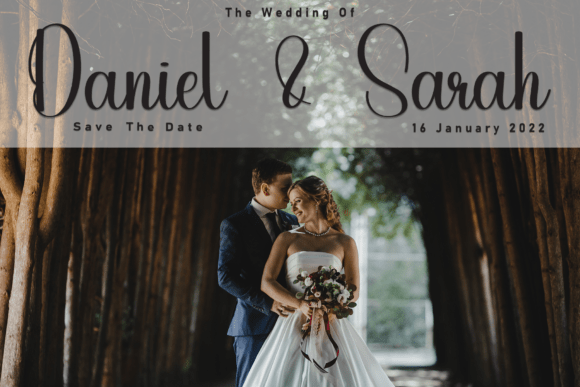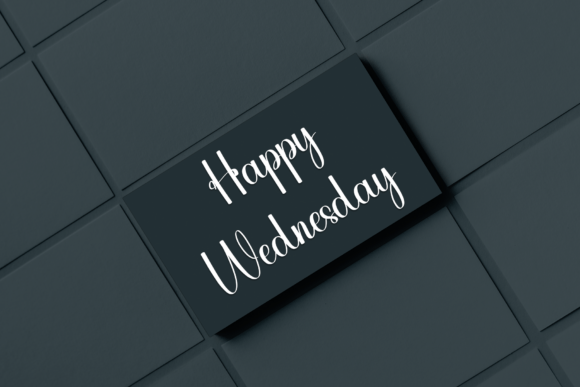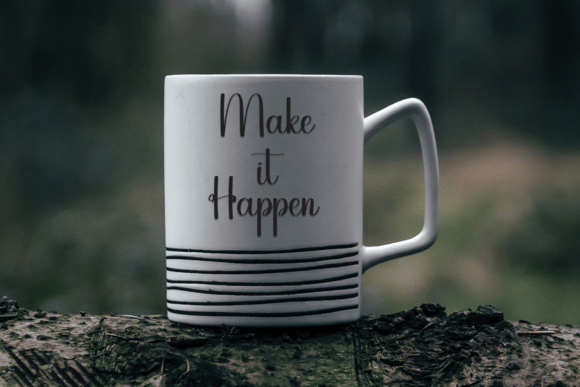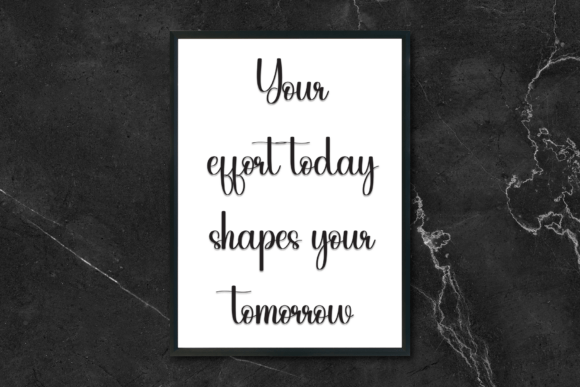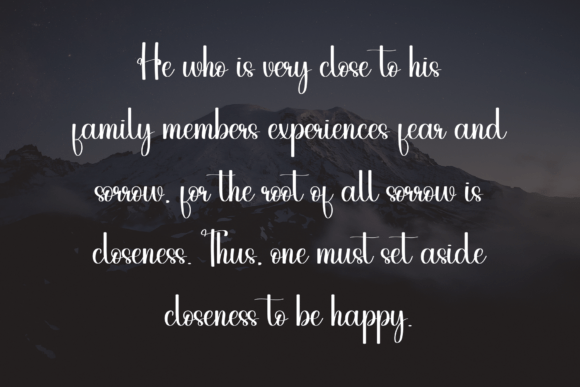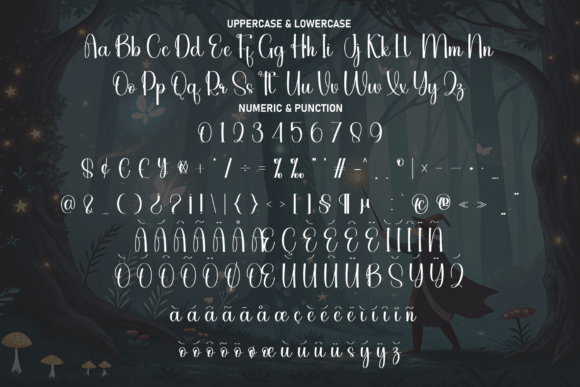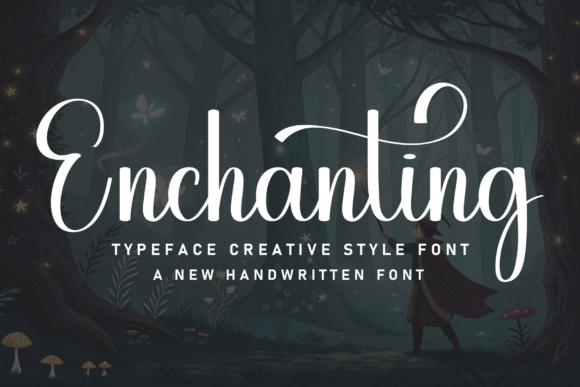
Unveiling the Enchanting Font: A Bespoke Hand-Drawn Display Font
Welcome to the whimsical world of typography, where the boundaries of creativity are pushed and the art of lettering is elevated. In this realm, one font stands out for its treasured endearing charisma, captivating the hearts of designers and crafters alike. Say hello to the Enchanting Font, a bespoke hand-drawn display font that embodies the perfect blend of playful whimsy and polished aesthetic.
The Magic of Enchanting Font
This enchanting typeface is a masterful fusion of elegance and playfulness, making it a star in the realm of elegant wedding invitations, heartfelt messages, and any design seeking a sprinkle of joy. Each letter is carefully crafted to breathe life into your creative projects, imbuing them with a vibrant energy that’s impossible to ignore. The Enchanting Font is more than just a collection of letters; it’s an experience that transports your audience to a world of wonder and delight.
What Makes Enchanting Font So Special?
- Hand-Drawn with Love: Every letter, every curve, and every line is meticulously hand-drawn with love and care. This attention to detail gives the Enchanting Font its unique, human touch that sets it apart from generic fonts.
- Playful Whimsy Meets Polished Aesthetic: The Enchanting Font strikes the perfect balance between playful whimsy and polished sophistication. This blend makes it versatile enough for various design applications, from elegant wedding invitations to playful greeting cards.
- Vibrant Energy: The font pulses with a lively energy that’s contagious. It adds a spark to your designs, making them more engaging and memorable.
- Elegant and Versatile: Whether you’re designing wedding invitations, crafting heartfelt messages, or creating captivating headlines, the Enchanting Font adapts effortlessly to your creative vision.
Applications of Enchanting Font
The Enchanting Font is a versatile tool that can elevate a wide range of design projects. Here are some popular applications:
- Wedding Invitations: Add a touch of elegance and romance to your wedding invitations with the Enchanting Font. Its sophisticated yet playful vibe sets the tone for a memorable celebration.
- Greeting Cards: Infuse your greeting cards with warmth and personality using the Enchanting Font. Perfect for birthdays, anniversaries, or just because, this font makes your messages more heartfelt and special.
- Headlines and Titles: Make your headlines and titles pop with the Enchanting Font. Its vibrant energy and playful charm are sure to grab attention and leave a lasting impression.
- Branding and Packaging: Incorporate the Enchanting Font into your branding and packaging to add a unique, handcrafted feel. This can help differentiate your brand and make it more relatable to your audience.
Tips for Using Enchanting Font
To make the most of the Enchanting Font, consider the following tips:
- Mix and Match: Experiment with different font sizes, colors, and styles to create visual interest and hierarchy in your designs.
- Pair with Complementary Fonts: Combine the Enchanting Font with complementary fonts to add contrast and sophistication to your designs.
- Play with Colors: Take advantage of the Enchanting Font’s versatility by experimenting with various colors and textures.
- Keep it Simple: Don’t over-accessorize your designs. The Enchanting Font is beautiful on its own, so let its elegance shine through.
In the world of typography, the Enchanting Font is a treasured gem that adds a touch of magic to any design project. Its bespoke hand-drawn charm, playful whimsy, and polished aesthetic make it a versatile tool for designers and crafters. Whether you’re creating elegant wedding invitations, heartfelt messages, or captivating headlines, the Enchanting Font is sure to become an essential element in your creative toolkit. So, surrender yourself to the elated atmosphere of this mesmerizing handwritten typeface and let its enchanting allure captivate your audience.